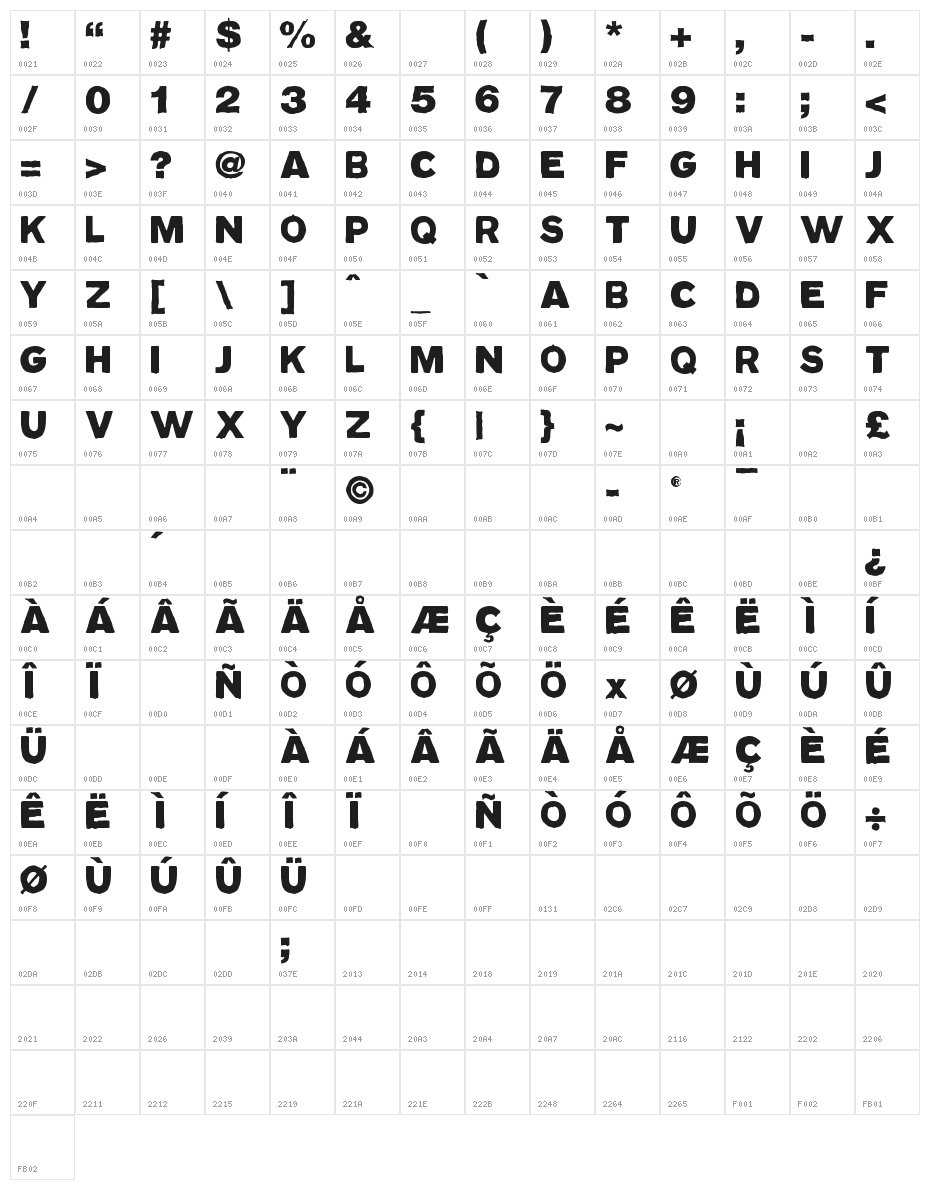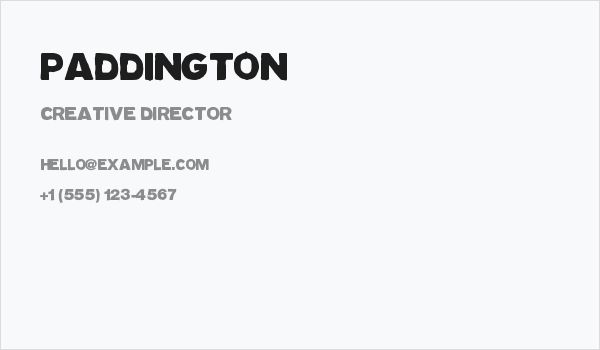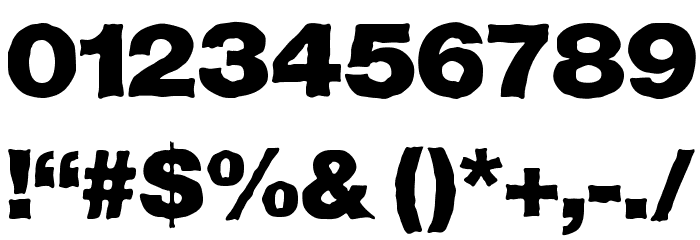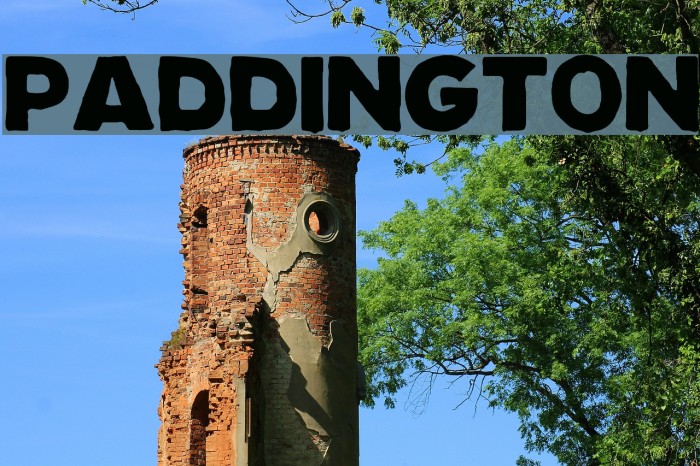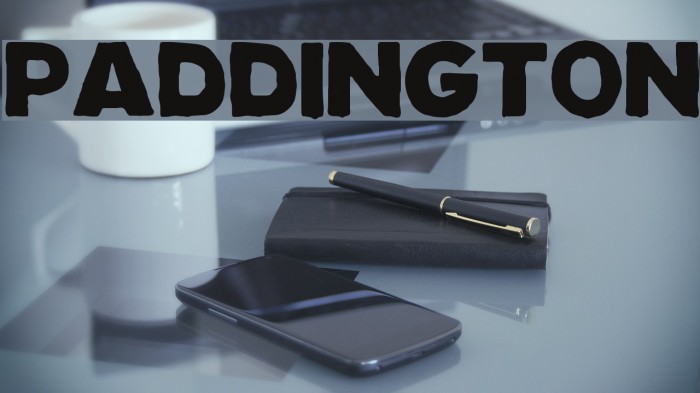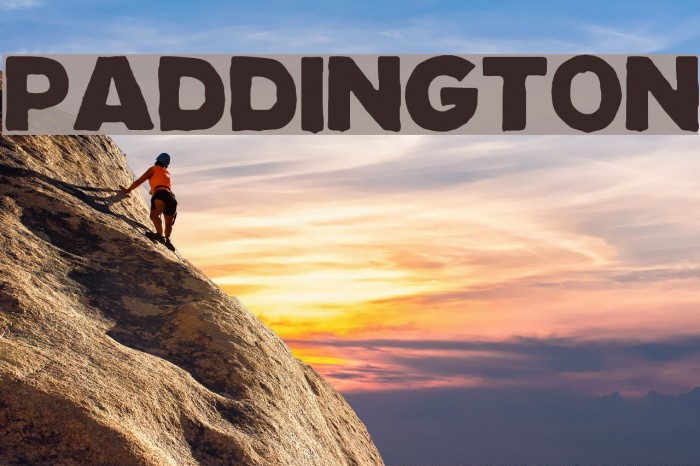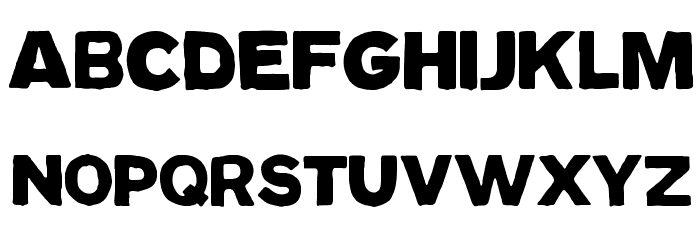
Paddington Font
Paddington Description
This font features bold, chunky letters with a playful and slightly irregular design, giving it a hand-crafted appearance. The characters are robust and have a strong presence, making them ideal for attention-grabbing headlines or titles. The uppercase and lowercase letters maintain a consistent style, with rounded edges and a slightly uneven baseline that adds to its charm. The numerals and special characters follow the same design ethos, ensuring a cohesive look across all text elements. This font's unique style is both approachable and impactful, suitable for creative projects that require a distinctive and memorable typeface.
| Overall Style | Playful, Hand-crafted |
| Proposed Projects | Ideal for children's books, playful branding, posters, and creative advertising. |